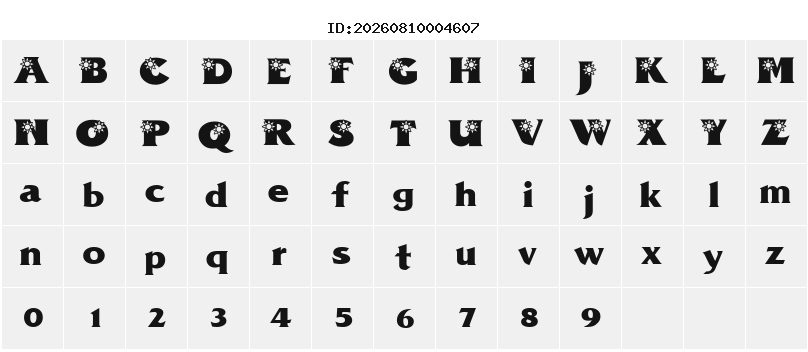
About PZ.Sun.ttf
PZ.Sun.ttf is a modern, elegant sans-serif font designed for ultimate readability and visual harmony. Perfect for branding, headlines, web design, and print materials.